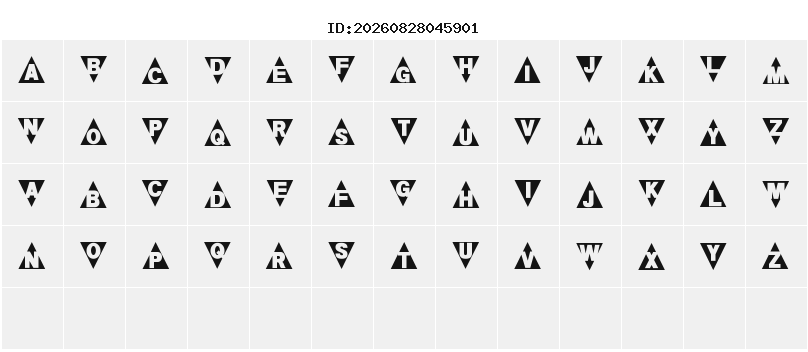
• Font Name: Triangleshape
• Designer: Daniel
About Triangleshape.ttf
Triangleshape.ttf is a modern, elegant sans-serif font designed for ultimate readability and visual harmony. Perfect for branding, headlines, web design, and print materials.